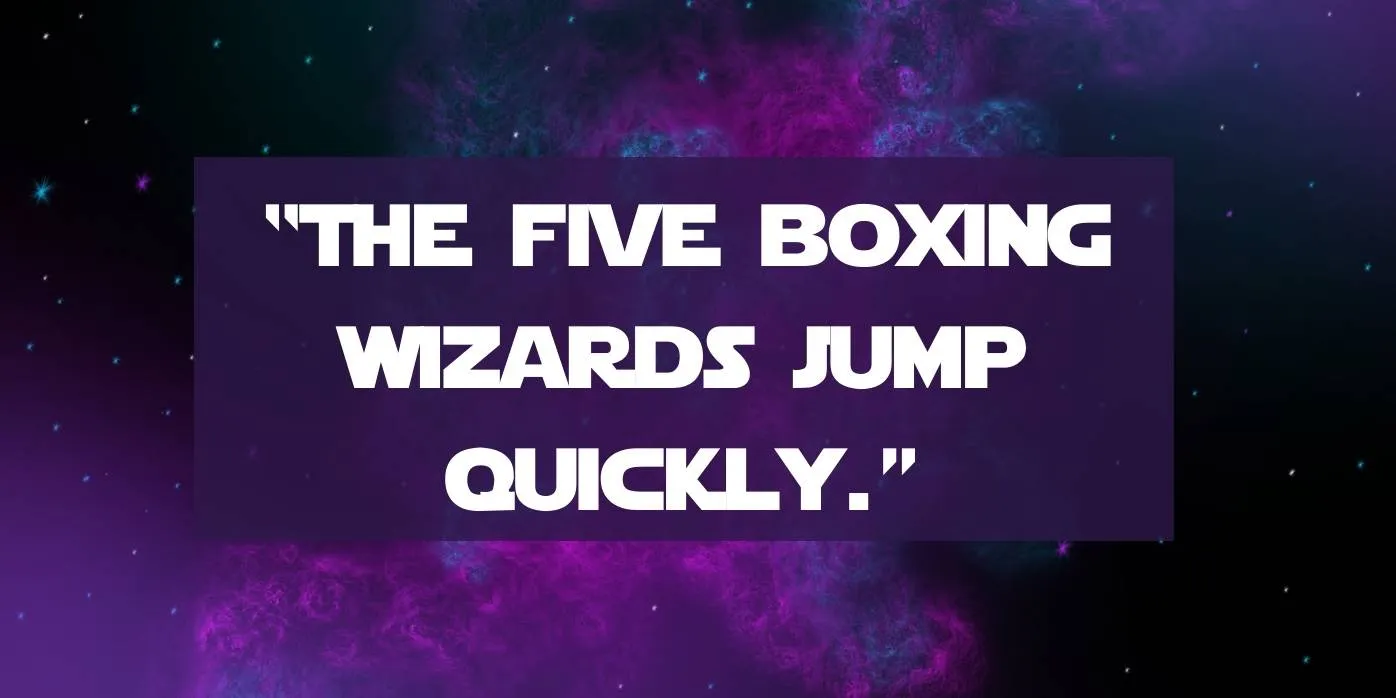
Jedi Font
Jedi Font is very famous and was designed by Neale Davidson. It belongs to the Display typeface.  This typeface was inspired by the Star Wars movies. This font is an elegant one and it comes in all caps. It has jagged edges to enhance its readability.
It was developed in three weights: Light, Regular, and Bold. For this reason, this font is best for various purposes including printing on invitations, cards. Its copy and paste function is best. There are many ways to download this font.